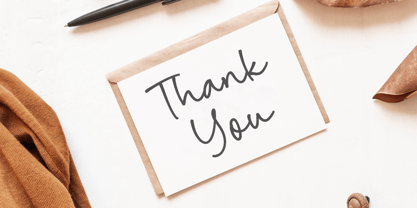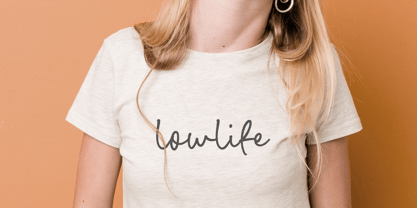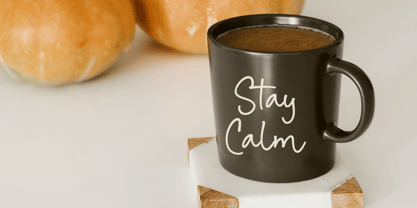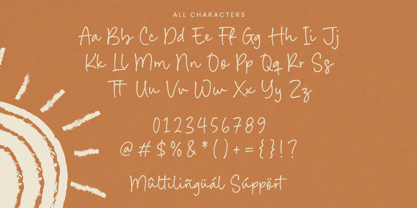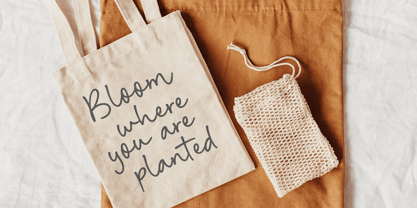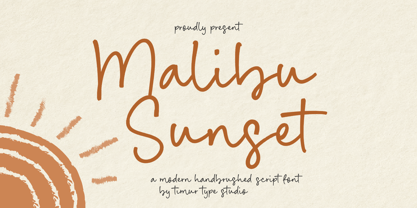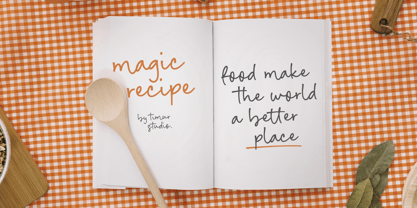
Malibu Sunset
by Timurtype
The Malibu Sunset Font Family was designed by Wara Sigit Tri Pamungkas and published by Timurtype. Malibu Sunset contains 1 styles. More about this family
Introduced by Timurtype Studio!
Malibu Sunset is a Modern Handbrushed Script Font
This font is a modern handbrushed script font that exudes a laid-back, beachy vibe. Its fluid, organic strokes capture the essence of relaxed coastal living, making it perfect for designs that require a touch of elegance and casual charm. Ideal for branding, logos, invitations, or any creative project that needs a handcrafted touch.
Malibu Sunset Font also supports multilingualism